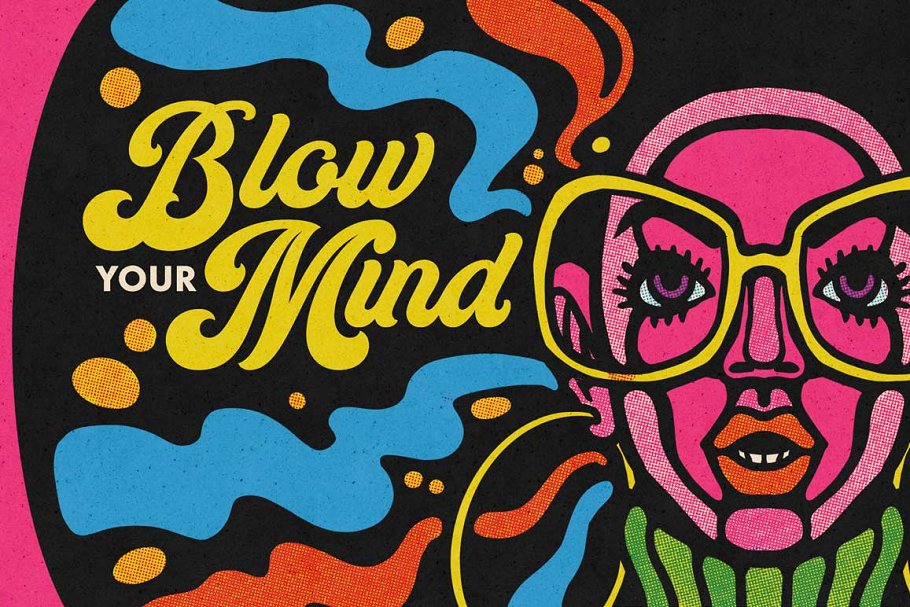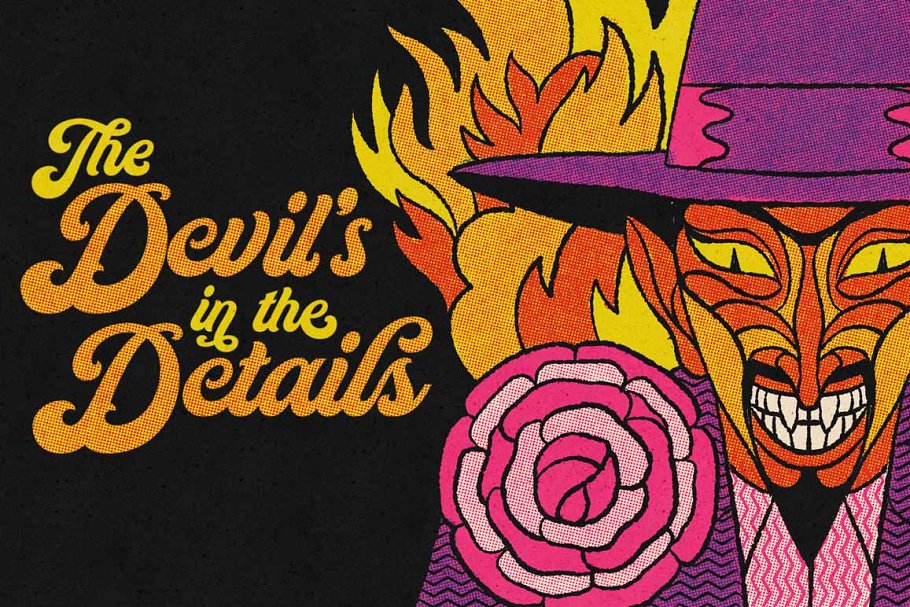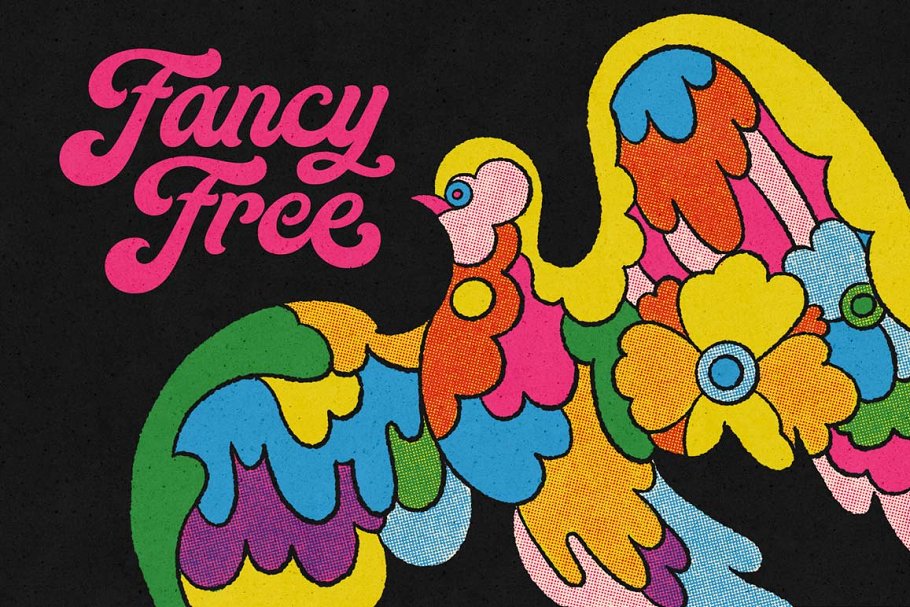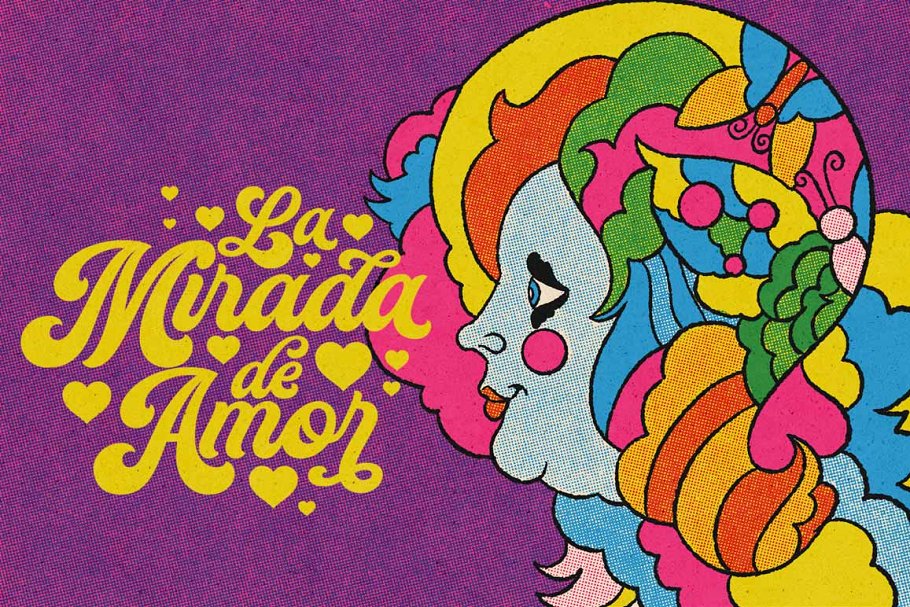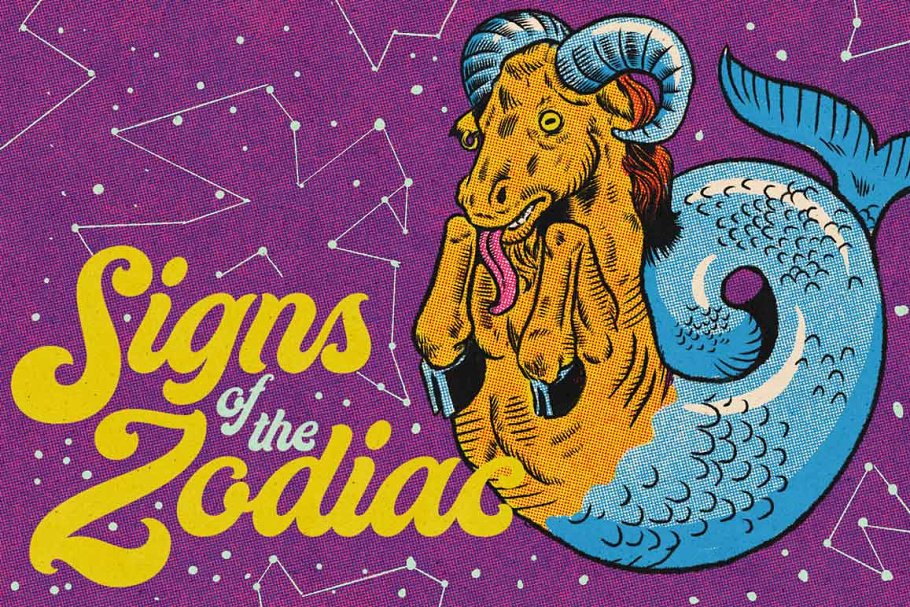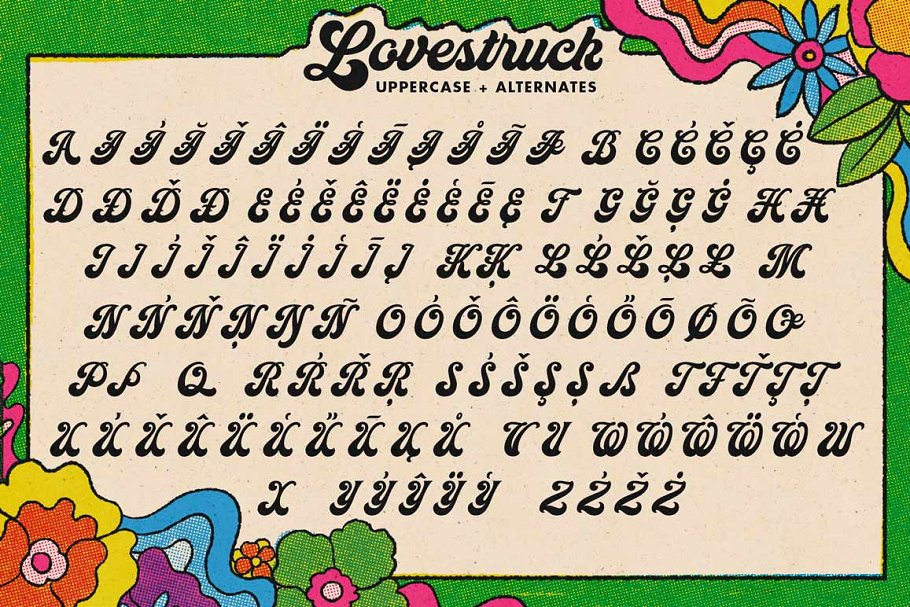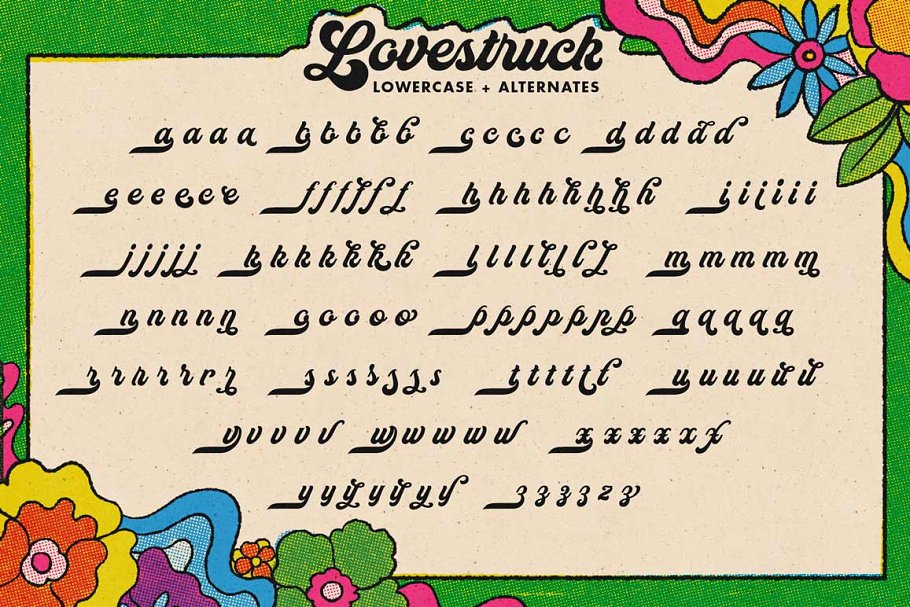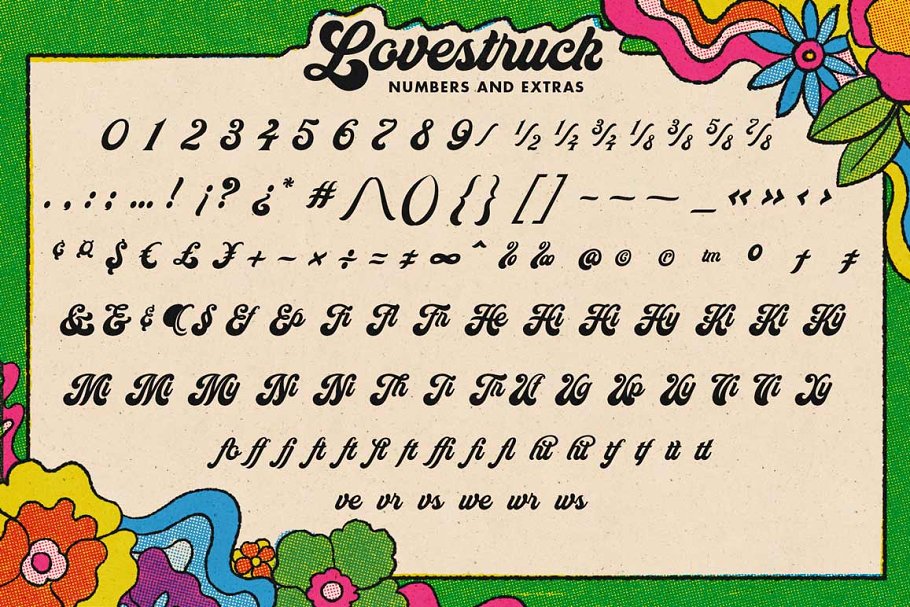
About the Lovestruck s Script Font
LET YOUR FREAK FLAG FLY WITH LOVESTRUCK!Lovestruck is a script font inspired by the flowy freeform lettering of the 60s and 70s, With roots in the luxurious details of the Art Nouveau movement and bold flourishes found in psychedelic culture, you’re sure to capture vintage magic with this new script font, Plus, we built this font using OpenType features so it automatically adjusts to fit perfectly within your design layout
No fussing around with tracking values or kerning pairs needed!Check out these specs:Inspired by iconic script lettering of the 1960s and 1970s, 600+ glyphs including initial and terminal letters, alternates, ligatures, and multiple language support for Western European languages
OpenType features adjust automatically within your design layout, Built on solid lettering principles from the early 20th century, Created by lettering icon Jason Carne, We know how much time goes into designing something beautiful – we want you to be able to achieve that effortlessly!That’s why we built this font like the vintage lettering from the 1960s – so all you have to do is sit back and let Lovestruck’s vintage magic spill onto the page